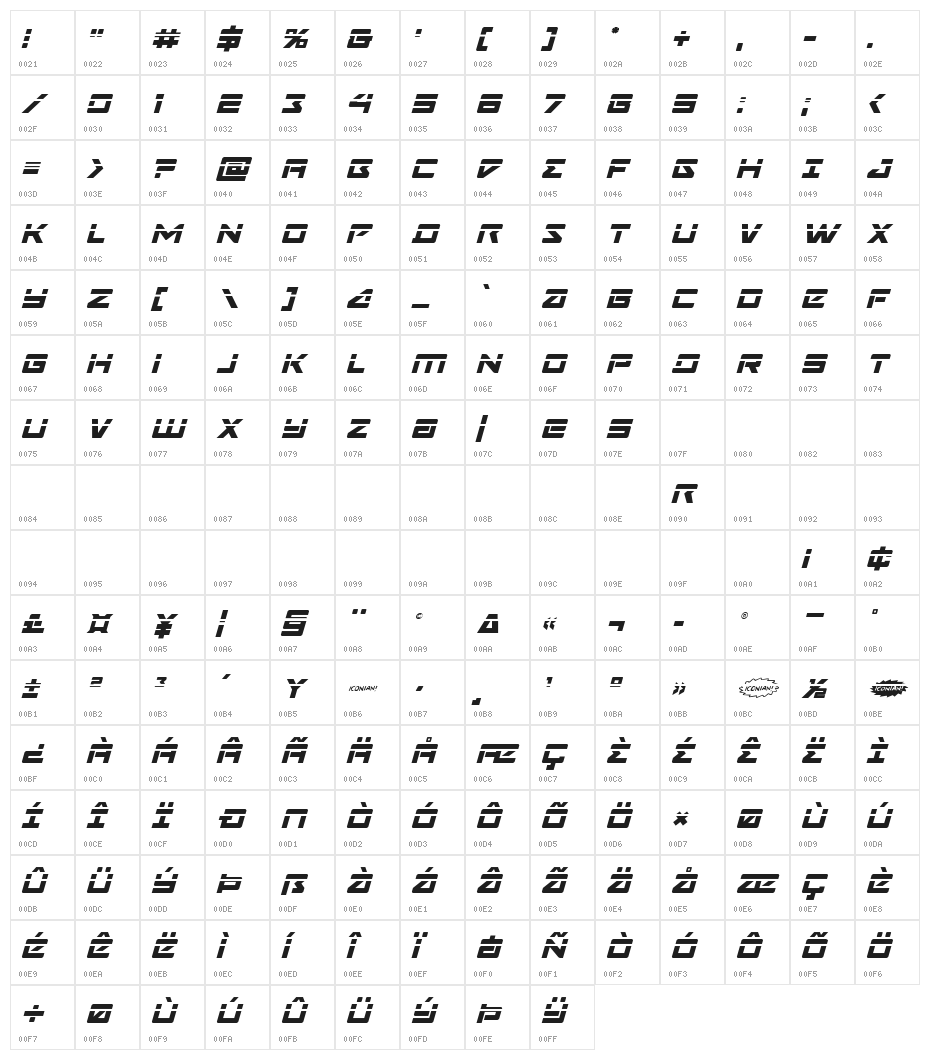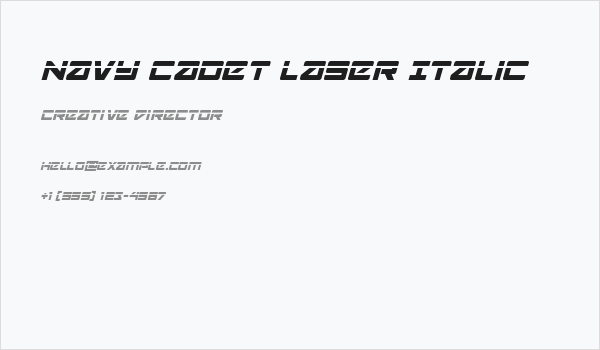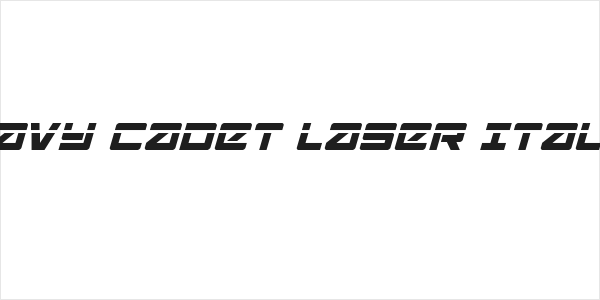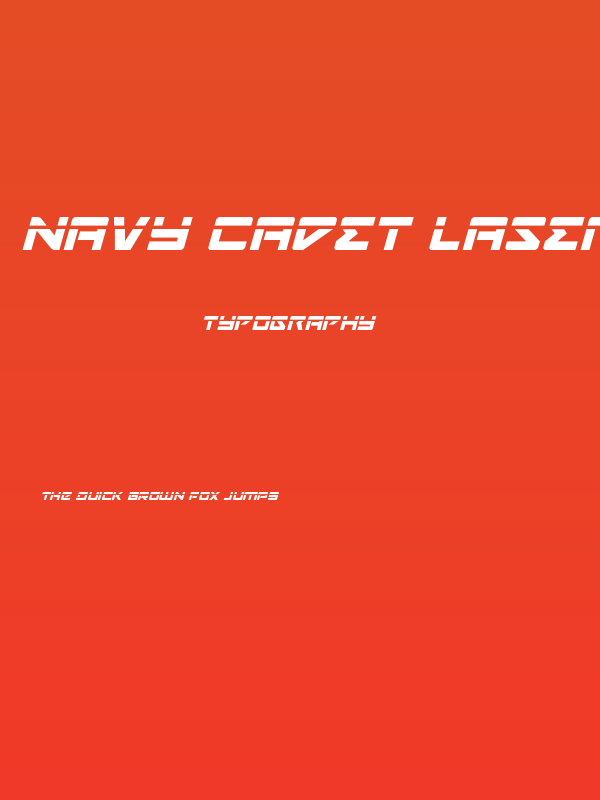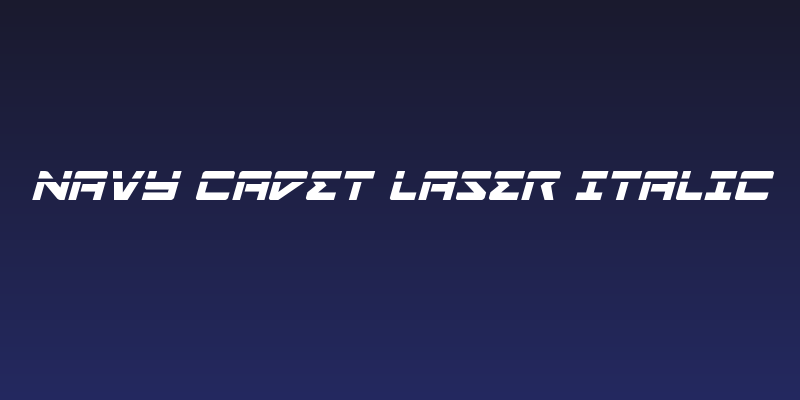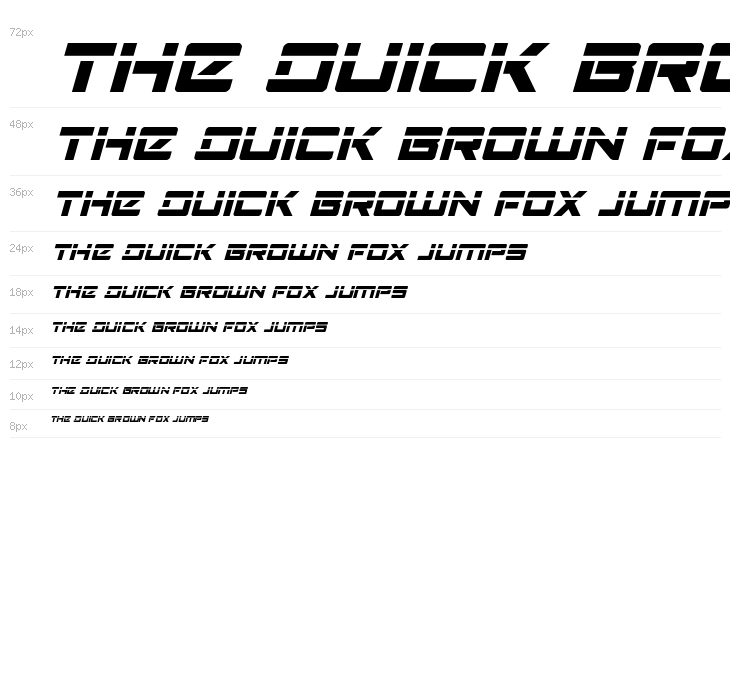
Navy Cadet Laser Italic Font
Navy Cadet Laser Italic Description
This font features a futuristic and angular design, characterized by sharp edges and a slanted, italicized style. The uppercase and lowercase letters maintain a consistent geometric structure, giving a sense of speed and modernity. The numerals and special characters follow the same angular theme, making the font cohesive across all elements. The bold strokes and italic slant contribute to a dynamic and energetic appearance, suitable for projects that require a modern and tech-savvy aesthetic.
| Proposed Projects | Ideal for sci-fi themed designs, tech branding, video game titles, and futuristic posters. |